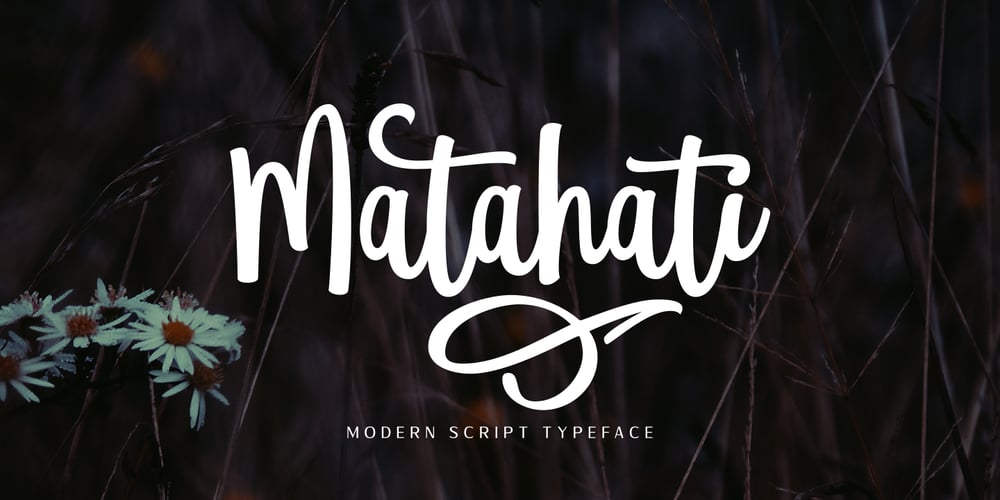
Matahati Font Family was designed by Arwan Sutanto and published by Locomotype. Matahati contains 2 styles and family package options. Matahati is a script font that is created based on the modern calligraphic style which is reprocessed by combining passion and deep feelings to create beautiful artwork and memorable. Besides bringing charming basic characters, Matahati also offers OpenType features that will facilitate the work of typography and graphic design. It includes Standard Ligatures, Stylistic Alternates, Terminal Swashes, Regular Swashes, Stylistic Set and PUA (Private Use Area) Unicode. This font also presents the beautiful ornaments of Matahati Swash, so it will be easier to mix and match your design. Matahati is suitable for the design of posters, invitations, quotes, headlines etc. Matahati comes in various styles — Regular, Slant, and Swash — each with its own unique personality to suit the style you need for your design.